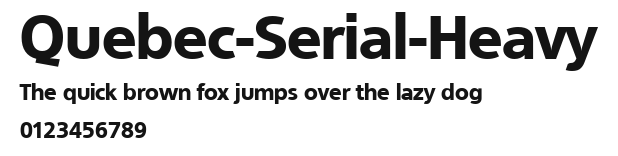
Quebec-Serial-Heavy Preview
• Font Name: Quebec-Serial-Heavy
• Full Font Name: Quebec-Serial-Heavy-Regular
About Quebec-Serial-Heavy.ttf
Quebec-Serial-Heavy.ttf is a modern, elegant sans-serif font designed for ultimate readability and visual harmony. Perfect for branding, headlines, web design, and print materials.